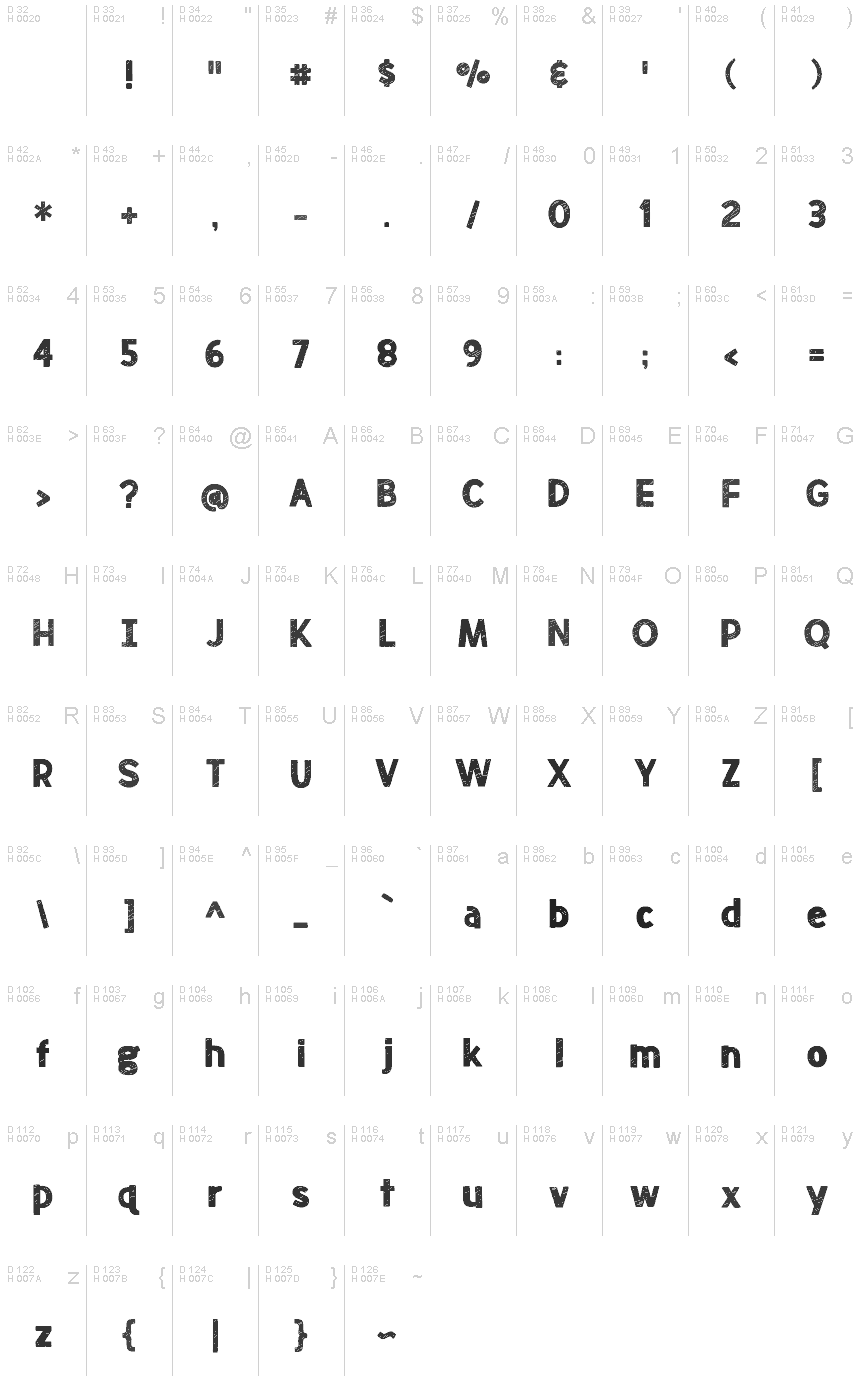
meatloaf sketched
Meatloaf is a captivating display font that exudes a delightfully quirky and weathered charm. Designed by Brittney Murphy, this font features a bold, cartoon-inspired aesthetic, with its letters appearing sketched and eroded, lending an air of playful spontaneity.
The irregular, gritty lines and distressed textures create a sense of vintage appeal, making Meatloaf an excellent choice for branding, packaging, and editorial design projects seeking a distinctive, handcrafted look.
Its versatility extends to various applications, from bold headlines to impactful logos, where its unique character can truly shine.